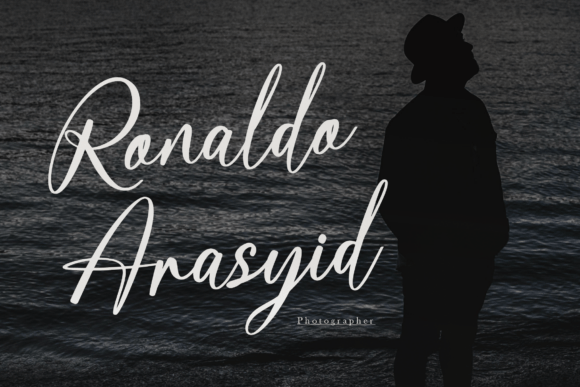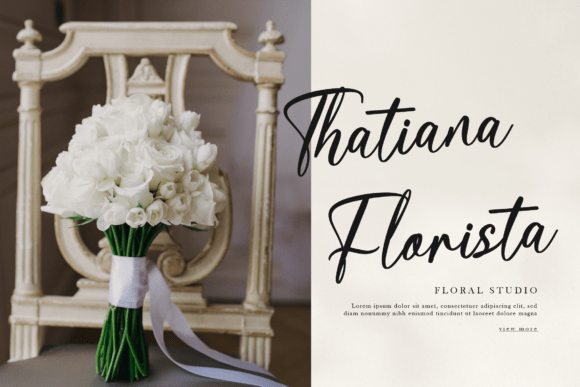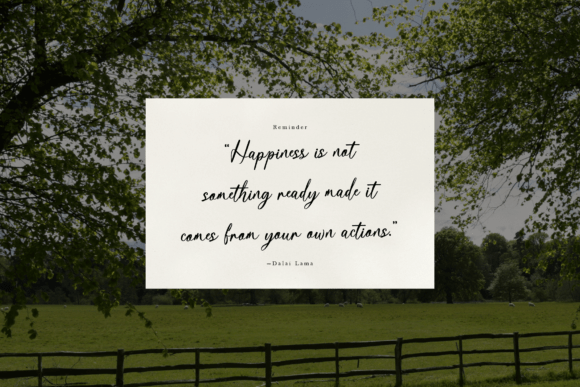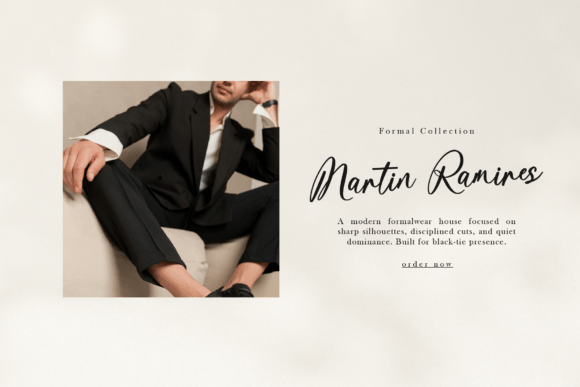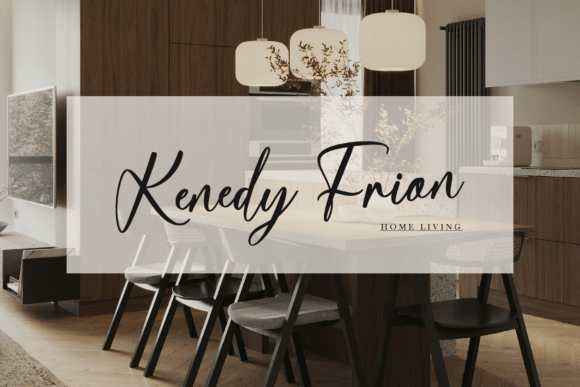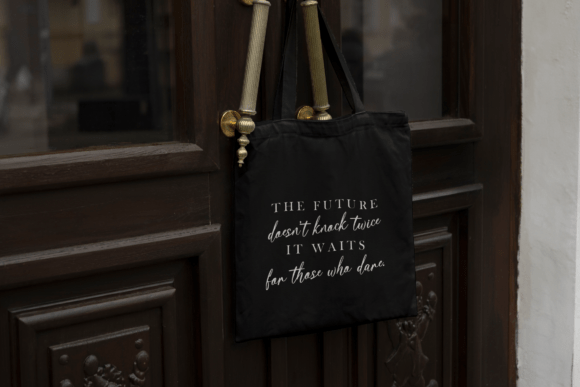
Introduction to Kartaliaw Mimohasa Font
Have you ever been working on a creative project, pouring your heart and soul into it, only to find the perfect font is missing? That elusive, high-quality design resource can make all the difference between a good design and a great one. As designers, we know the struggle of finding the perfect font to elevate our projects and leave a lasting impression on our audience.
That’s where Kartaliaw Mimohasa Font comes in – a premium signature script font that adds a touch of refined sophistication to any branding. With its modern elegance and timeless appeal, this font is an exceptional choice for high-end logos, photography, fashion, interior design, wedding invitations, personal note cards, and luxury event branding. Its transparent background and free download option make it an attractive addition to any designer’s toolkit.
Whether you’re working on a complex design project or just need a stylish font for a personal note, Kartaliaw Mimohasa Font is a valuable resource that’s sure to impress. Its high quality and versatility make it an essential design tool for any creative professional.
Key Features of Kartaliaw Mimohasa Font
- High-quality, free font perfect for creative projects requiring a unique design resource.
- Transparent background, allowing for seamless integration into various design elements.
- Features a distinctive, hand-drawn design that adds a touch of elegance to any creative project.
- Perfect for designers seeking a unique, high-quality font to elevate their creative project and leave a lasting impression.
Honest Review: Kartaliaw Mimohasa Font
I recently stumbled upon the Kartaliaw Mimohasa Font, and I must say it’s a delightful addition to any creative project. The first thing that caught my attention was its unique and intricate design. It’s perfect for designers who want to add a touch of elegance and sophistication to their work.
- ✨ The font’s transparent background makes it incredibly versatile and easy to work with.
- ✨ The high quality of the font ensures that it looks great on any screen resolution.
- ⚠️ The font may not be suitable for large-scale text due to its intricate design.
- ⚠️ It may require some tweaking to get the desired look, especially when combined with other fonts.
Overall, I’m impressed with the Kartaliaw Mimohasa Font. It’s a great design resource that can add a unique touch to any creative project. With a little experimentation, you can achieve some truly stunning results.
Tips for Getting the Most Out of Kartaliaw Mimohasa Font
Experiment with different font sizes and colors to find the perfect combination for your design. Consider using the Kartaliaw Mimohasa Font in a creative project, such as a logo or branding material, to add a unique touch. Additionally, take advantage of the font’s transparent background feature to create a seamless design.
Common Use Cases for Kartaliaw Mimohasa Font
The Kartaliaw Mimohasa Font is ideal for a variety of design projects, including social media graphics, presentations, and branding materials. It is also a great resource for designers who want to add a unique touch to their designs without breaking the bank. With its high-quality design and free download option, the Kartaliaw Mimohasa Font is a must-have design resource for any creative project.